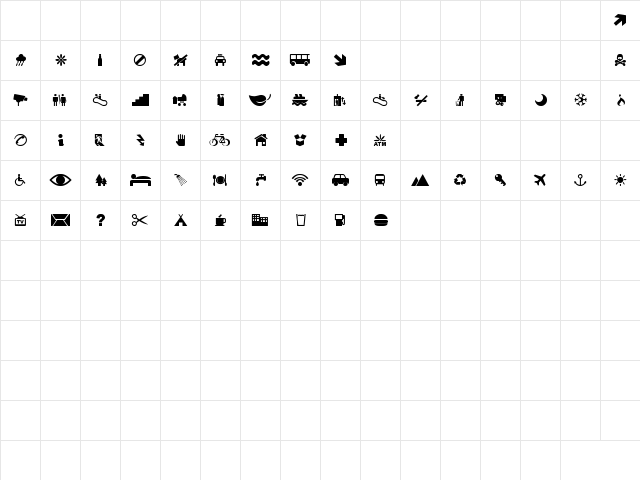
Pictogramz Regular
Design Context for Pictogramz Typeface
Pictogramz is a composed and adaptable typeface that performs quietly and consistently across a wide range of design contexts.